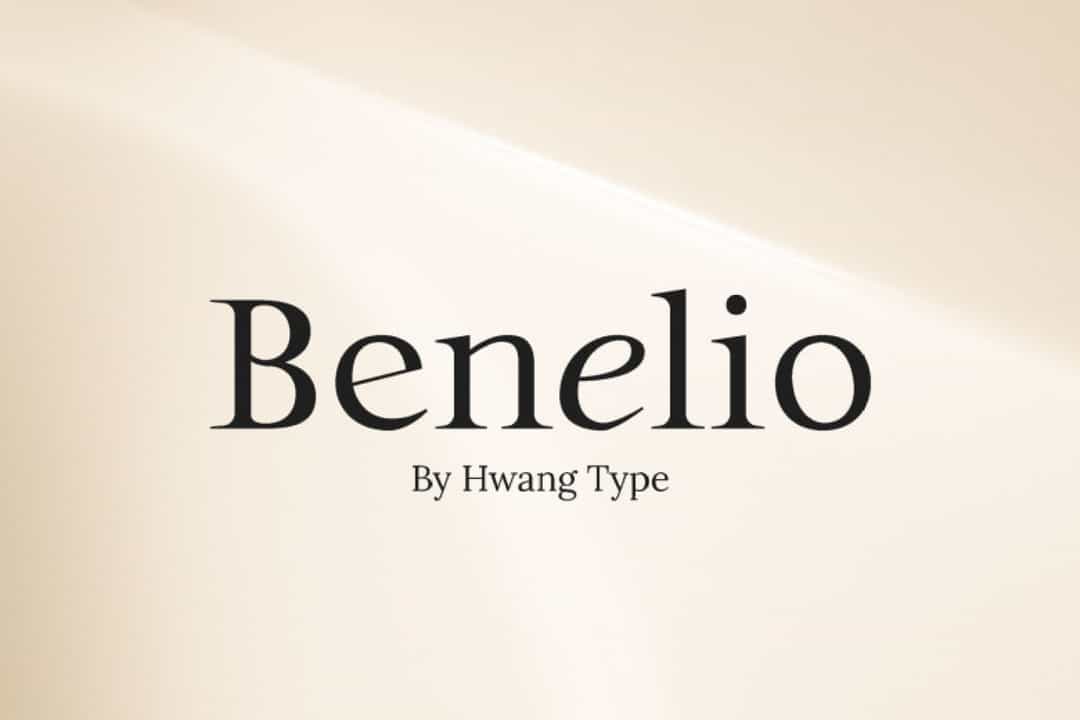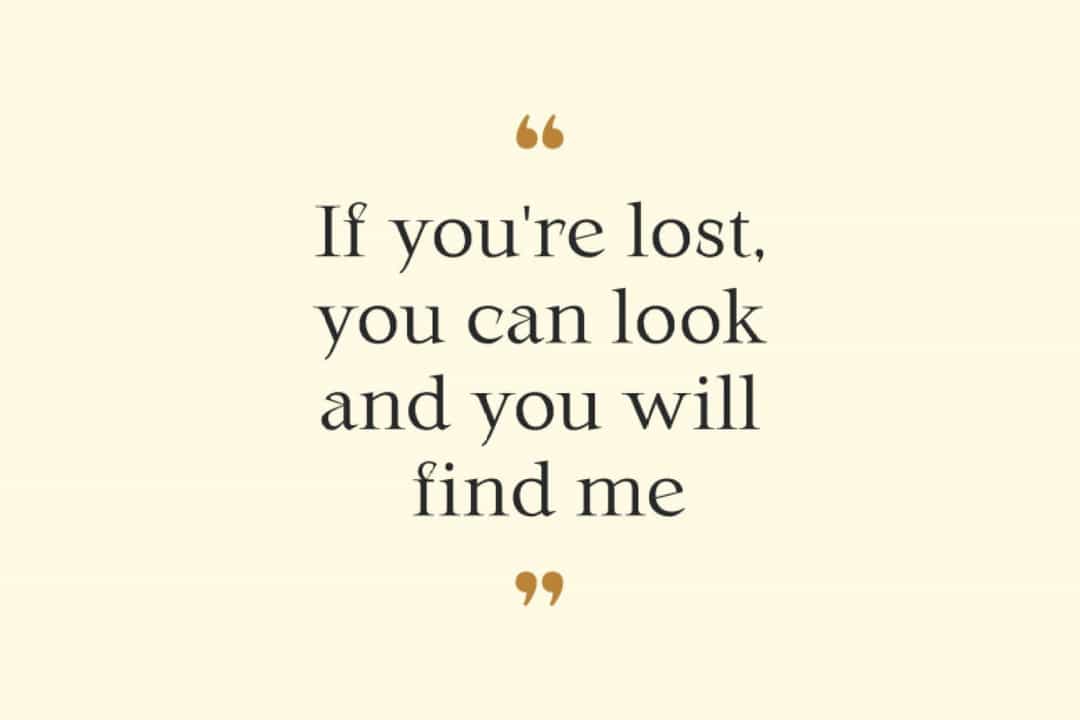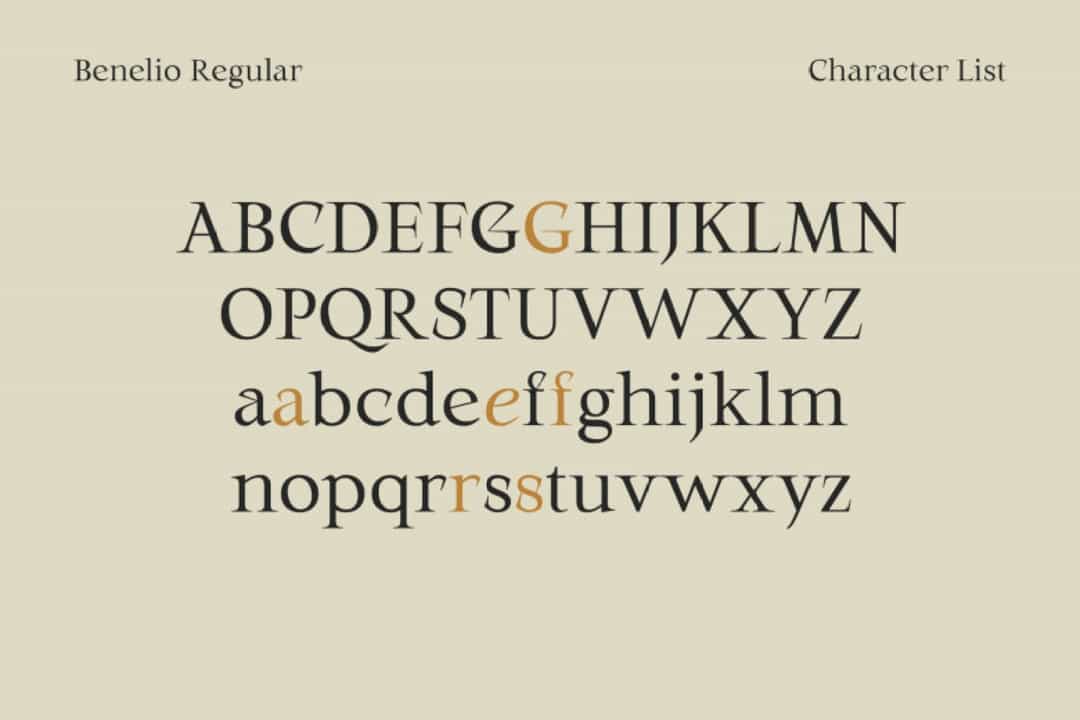
Benelio is an elegant, classic and distinctive serif font. Perfect for web designs and business cards alike, as well as almost anything that needs an eye-catching design element, include Benelio in your designs to be amazed at the results produced!